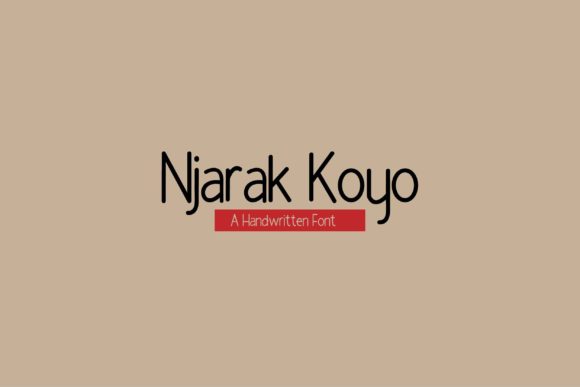
Immerse yourself in the world of Njarak Koyo, a captivating script font that oozes charm and authenticity. Its meticulously crafted characters, inspired by the beauty of handwritten notes, will add a touch of elegance and creativity to your digital designs.
Njarak Koyo is not just a font; it's an artistic expression that dances across the screen, captivating your audience with its unique style and personality. Its playful curves and delicate strokes evoke a sense of nostalgia, reminiscent of childhood letters and heartfelt messages. Whether you're crafting a reference letter, designing a heartfelt invitation, or creating eye-catching social media posts, Njarak Koyo will elevate your words and make them resonate with your readers.
Step into the realm of boundless creativity with Njarak Koyo. Its versatility knows no bounds, adapting seamlessly to a wide array of projects. From whimsical illustrations and enchanting logos to heartfelt greeting cards and personalized gifts, this font will effortlessly transform your ideas into stunning realities. Its ability to add a personal touch to any design makes it an indispensable tool for artists, designers, and creative professionals.
Experience the magic of Njarak Koyo and unleash your imagination. Its user-friendly nature and multilingual support make it accessible to everyone, regardless of their technical expertise or language preferences. Dive into a world of endless possibilities and let your creativity soar with this exceptional font.